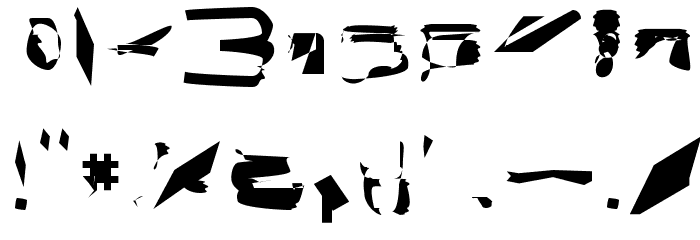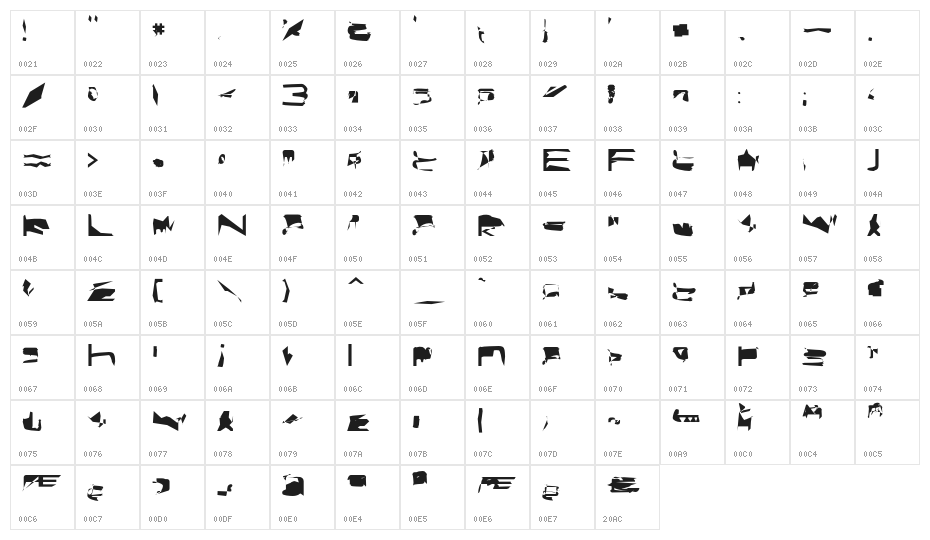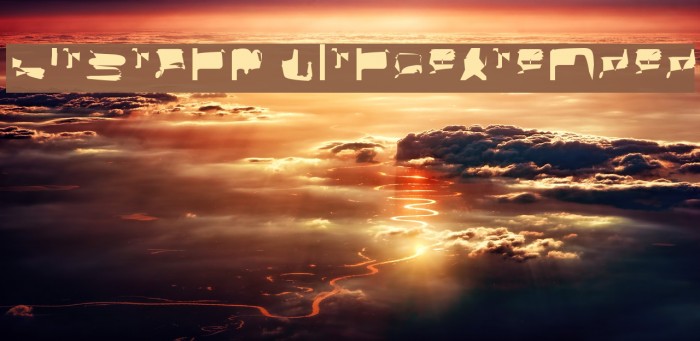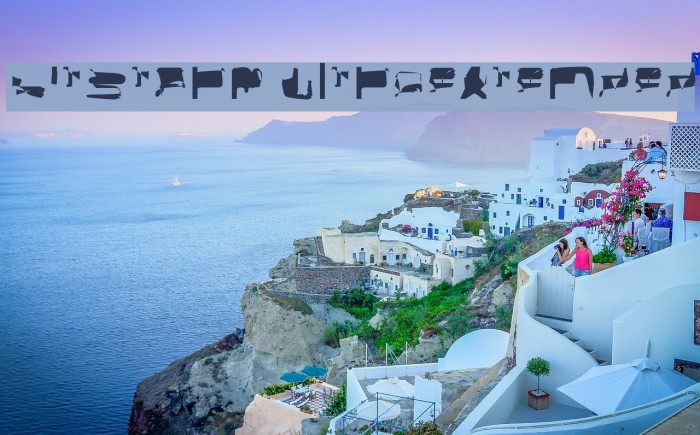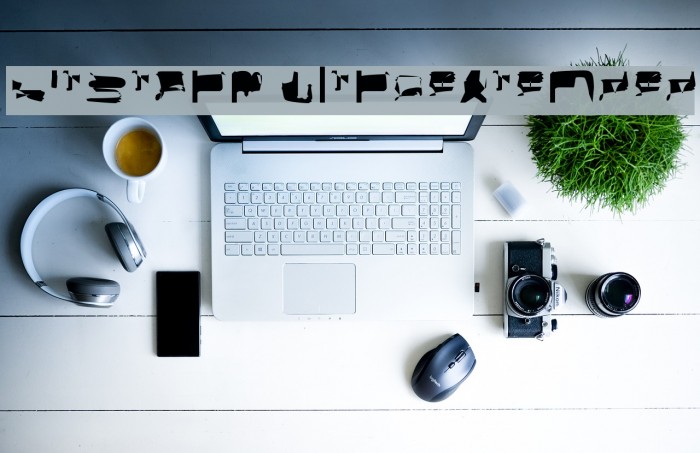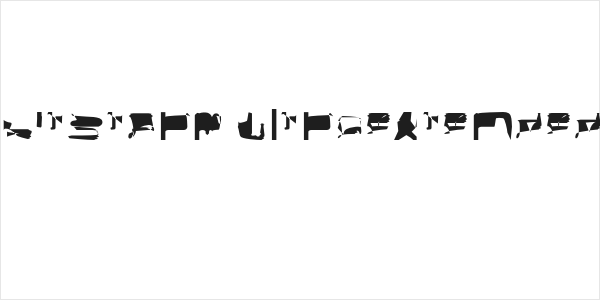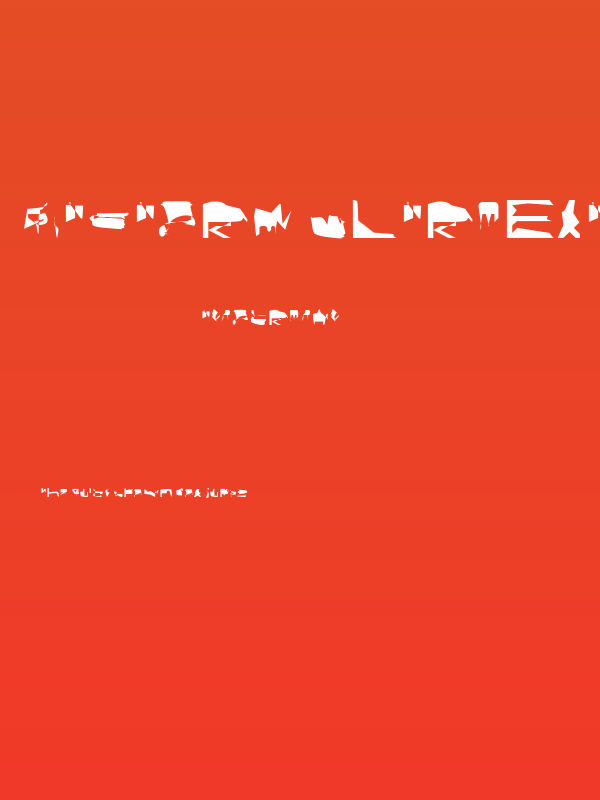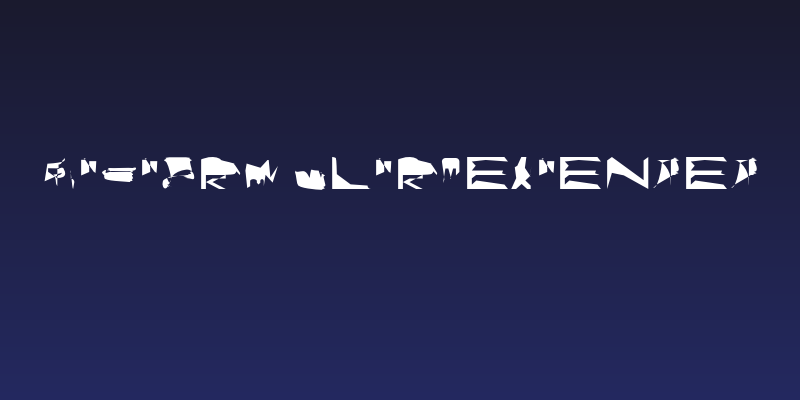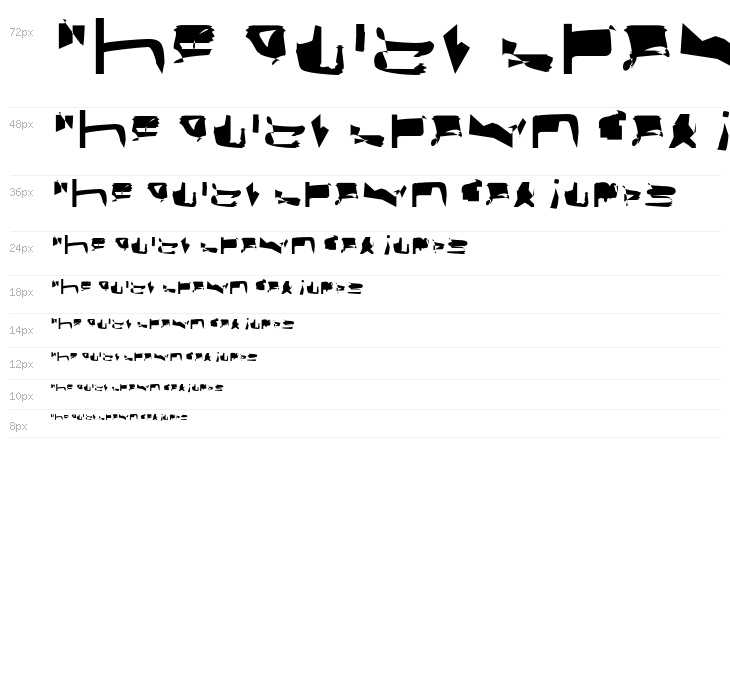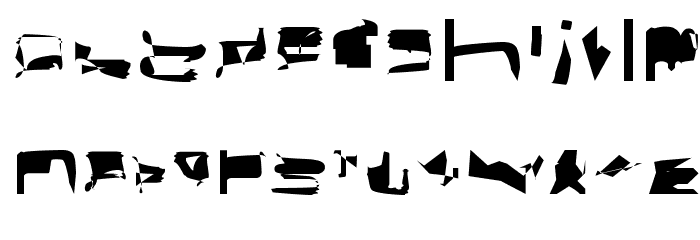
bitstorm ultraextended Font
bitstorm ultraextended Description
This font features a highly abstract and fragmented design, characterized by its sharp, angular shapes and irregular forms. The characters appear as if they have been shattered or distorted, creating a chaotic yet intriguing visual effect. The strokes are bold and thick, contributing to a strong presence on the page. Despite its fragmented appearance, each letter maintains a unique identity, allowing for readability when viewed closely. The font's unconventional style makes it stand out, offering a modern and edgy aesthetic that challenges traditional typography norms.
| Use Case | Logos, Posters, Artistic Displays |
| Proposed Projects | Ideal for experimental design projects, album covers, modern art posters, and edgy branding materials. |